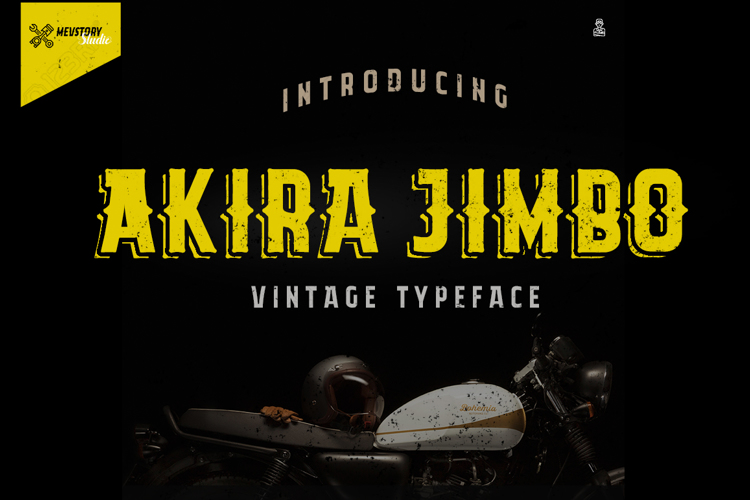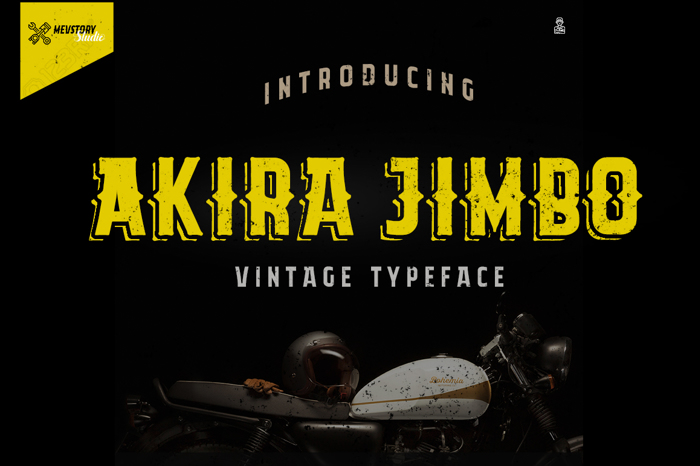
Akira Jimbo Font
About Akira Jimbo Font
Introducing Akira Jimbo ! - A vintage, retro and awesome character! With different weights, it's perfect for magazine layouts, invitations, headers, or even large-scale artwork.